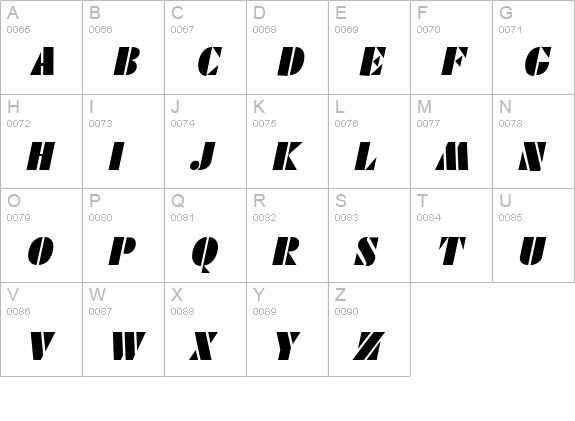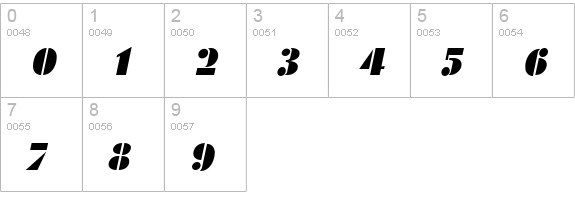
FuturistBlack Italic is a distinctive, italic variant in the FuturistBlack typeface family \xE2\x80\x94 well suited to design and typography projects.
FuturistBlack Italic font is a sleek and modern typeface that exudes a sense of sophistication and innovation. Its sharp angles and bold design make it perfect for creating striking headlines, logos, and branding materials. The italicized style adds a dynamic flair to any project, giving it a futuristic and edgy look. What sets FuturistBlack Italic font apart is not just its cutting-edge design, but also the fact that it is available for free download at FontsMarket.com. This means that you can easily access this high-quality font without any cost, making it a valuable resource for designers, creatives, and anyone looking to add a touch of modernity to their work. Whether you're working on a website, poster, or presentation, FuturistBlack Italic font is sure to make a bold statement and elevate your design to the next level.